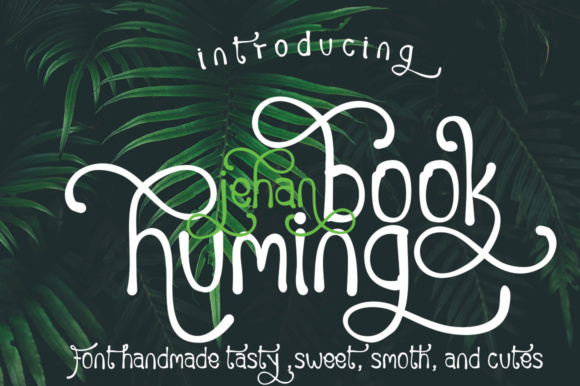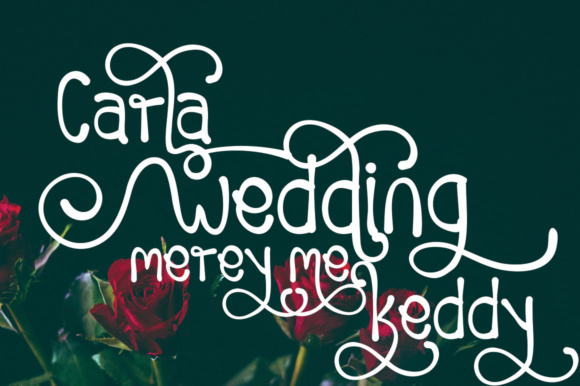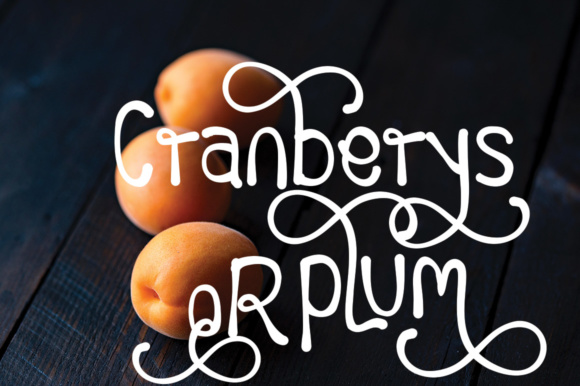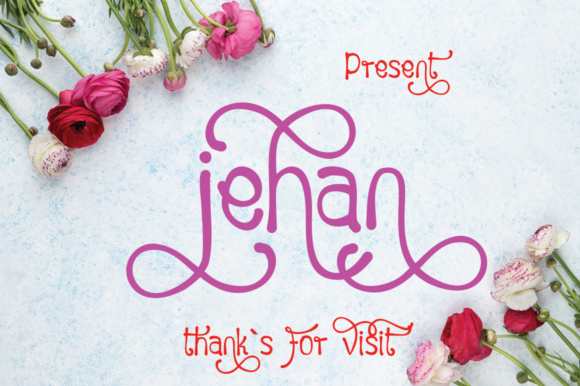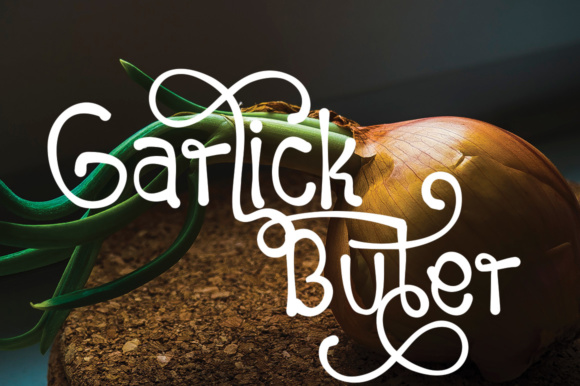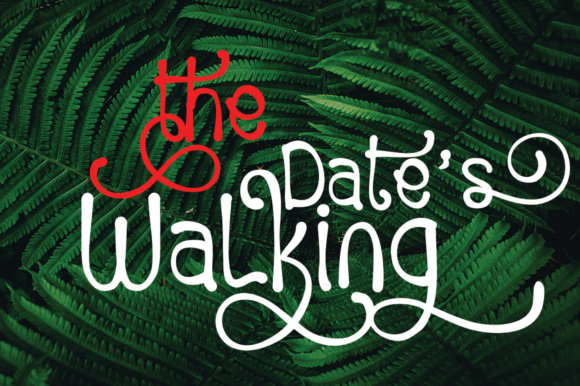
Huming Book Font
About Huming Book Font
The Huming Book is a beautiful handwritten typeface. It has a cute and sweet look which will give your design a playful, yet elegant feel.